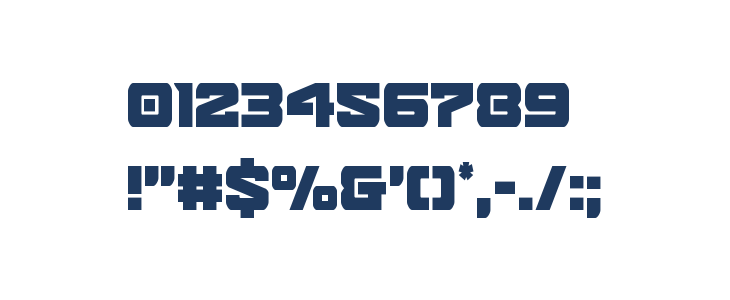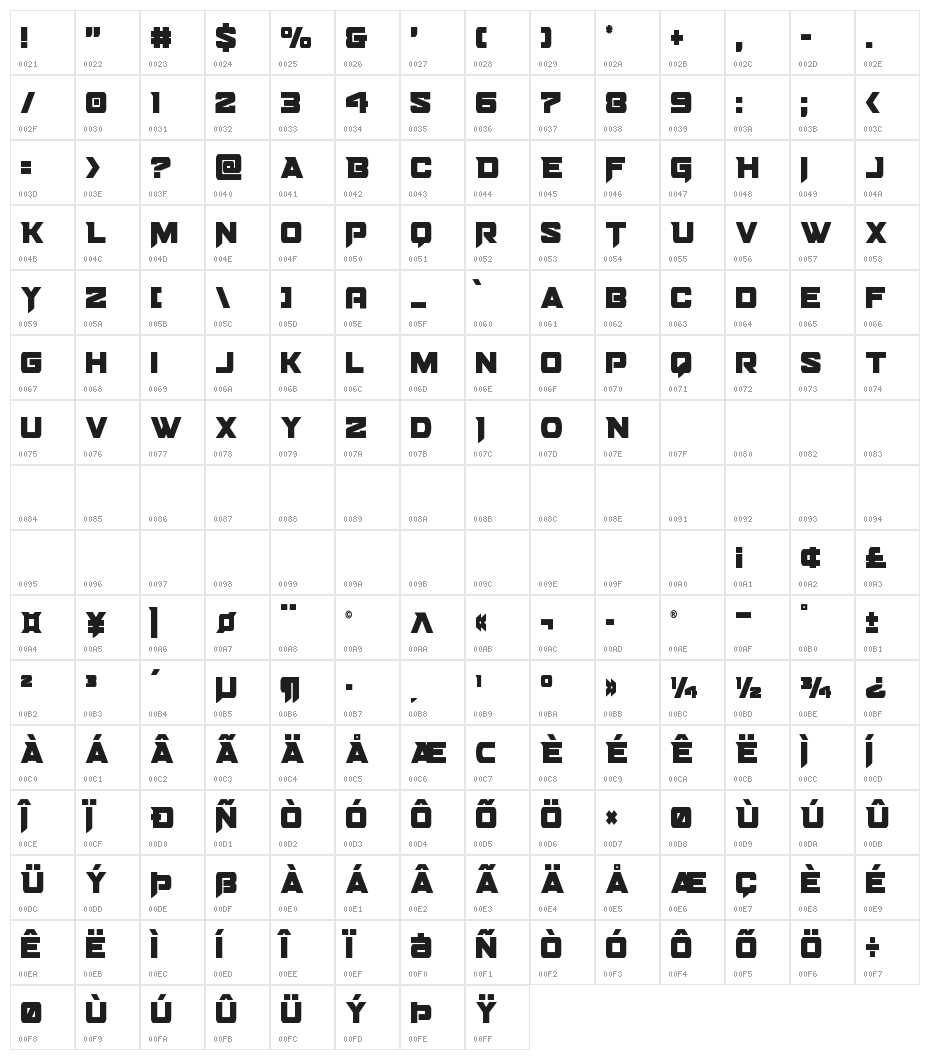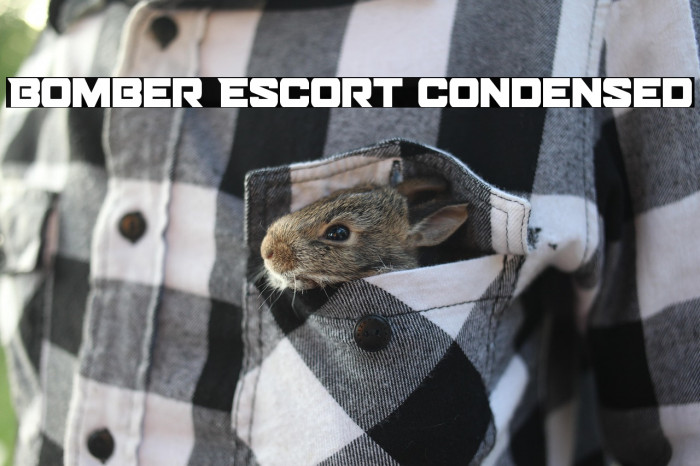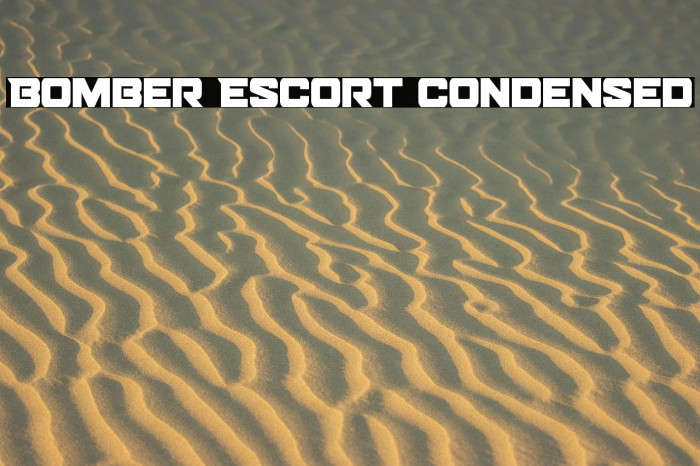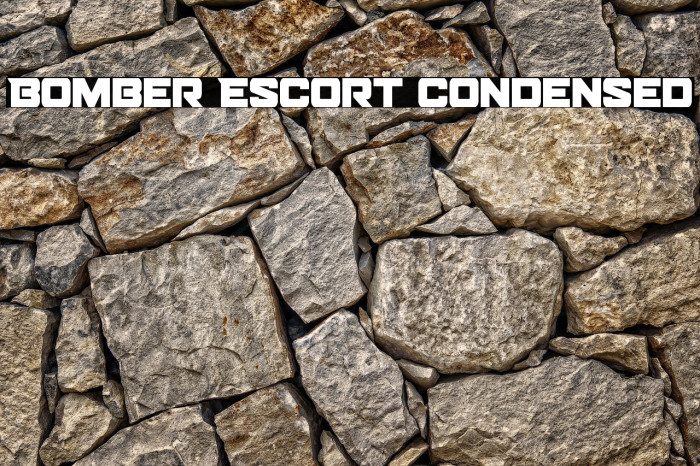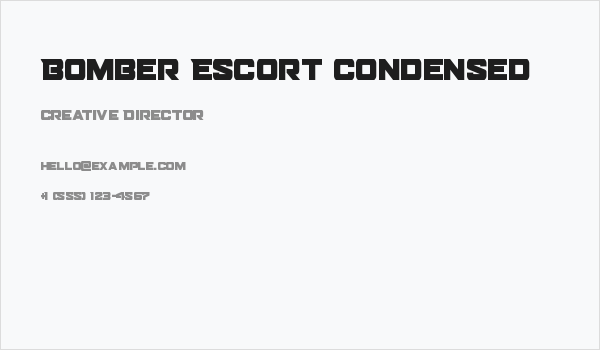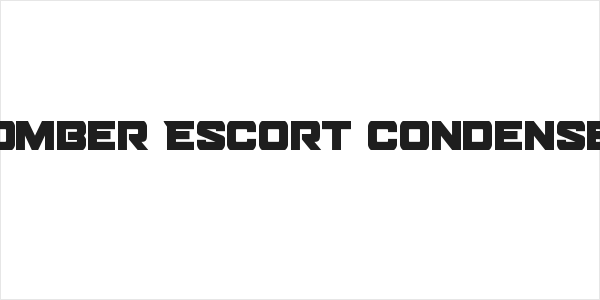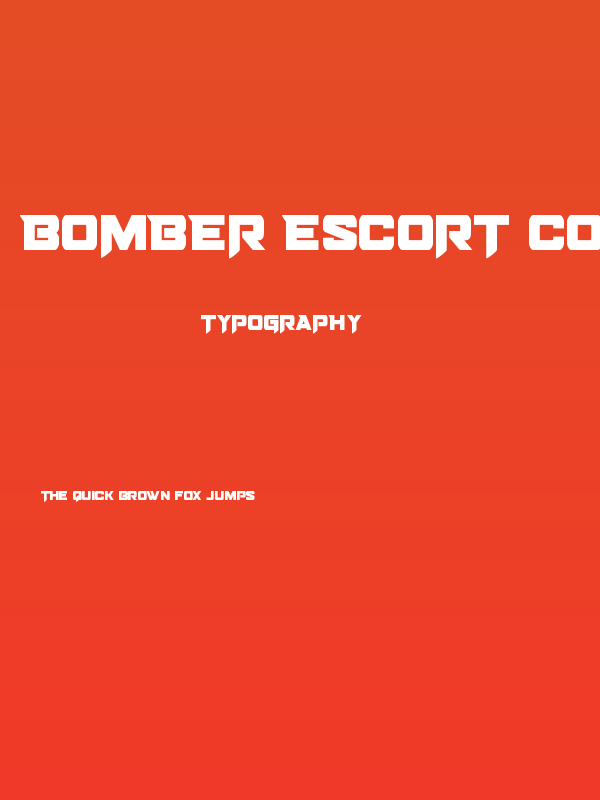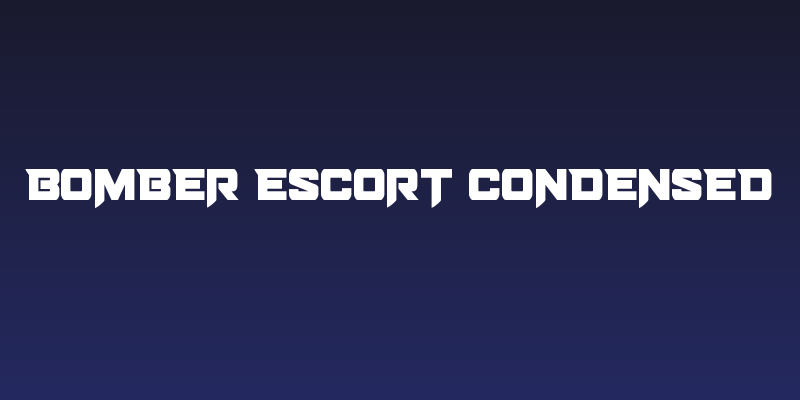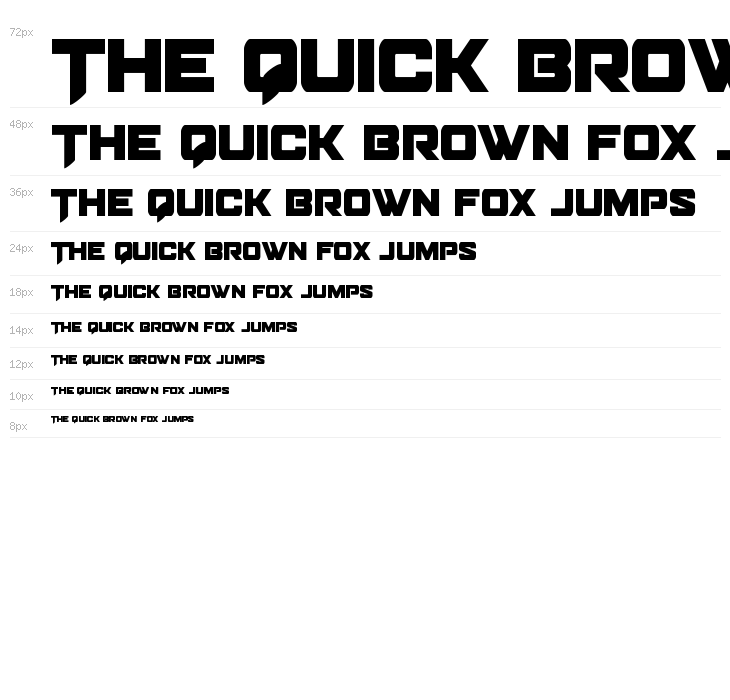
Bomber Escort Condensed Font
Bomber Escort Condensed Description
This font features a bold and condensed style with a distinctly angular and geometric design. The characters are crafted with sharp edges and a blocky appearance, giving it a strong and commanding presence. The uppercase letters are uniform in height, while the numbers and special characters maintain the same boldness and angularity. This font is highly legible and stands out due to its unique and modern aesthetic, making it suitable for impactful designs. The spacing between characters is tight, enhancing its condensed look. The overall style is reminiscent of military or industrial themes, adding a sense of strength and authority.
| Proposed Projects | Ideal for posters, logos, branding, and any design requiring a bold and authoritative look. |